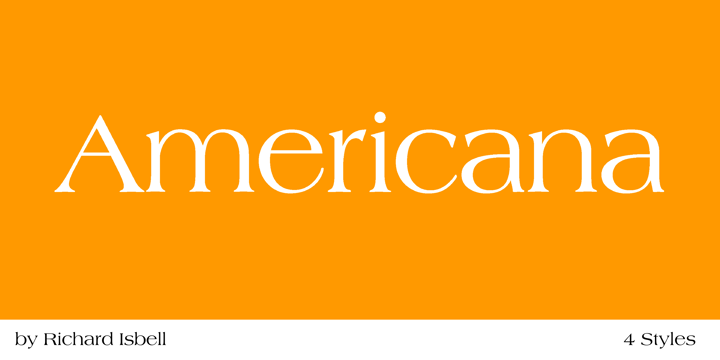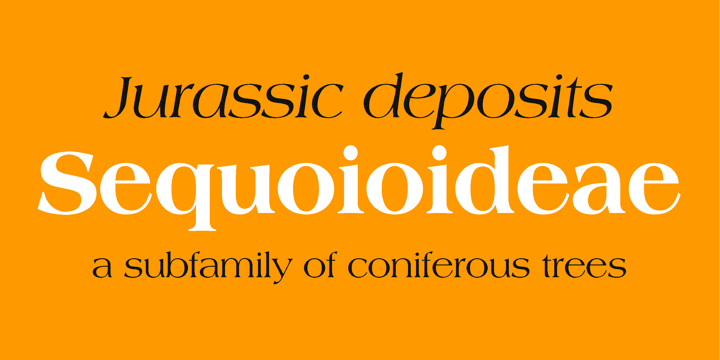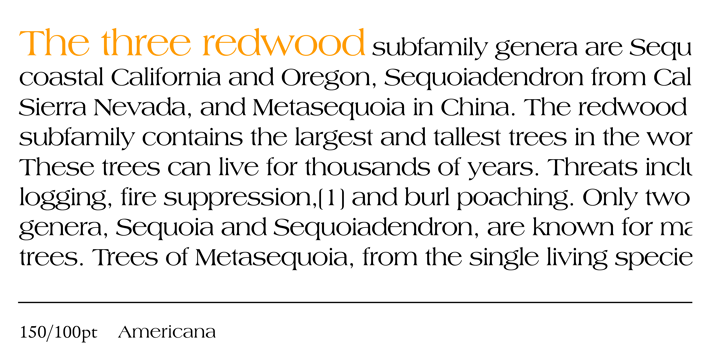
Richard Isbell
Richard Isbell, a contemporary graphic designer and type designer of Detroit, Michigan, created the fonts (1965) and (1981, with Jerry Cambell). He designed Americana in honor of the then upcoming U.S. Bicentennial. The most distinguishing feature about Americana is its extremely large x-height. The letter proportions are very wide, with short ascenders and descenders. Americana works well for short texts, such as headlines or ad copy.
ITC Isbell, is a highly stylized roman typeface which retains an exceptional legibility. The unusual arches and curves of several lowercase characters give the typeface its individuality. ITC Isbell, is ideal for advertising, brochures, menus, and a variety of other applications.